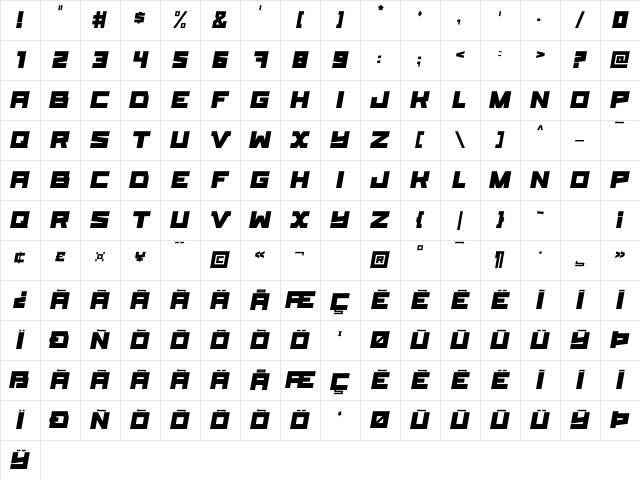
E-Muse Bold Free Font
E-Muse Bold
Foundry: Don Marciano
Designer: Juan Miguel Castillo
Design Context for E-Muse
E-Muse is a composed and adaptable typeface that performs quietly and consistently across a wide range of design contexts. Its bold stroke weight gives it real presence on the page.
Who designed the E-Muse Bold font?